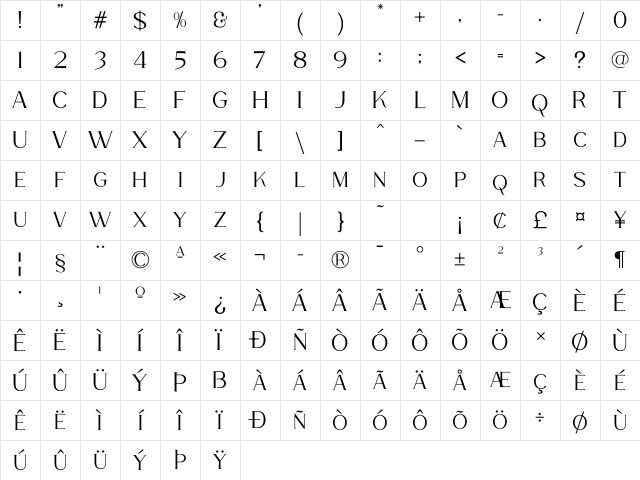
La Fleur Regular Free Font
La Fleur Regular
Foundry: Kong Font
Designer: Kong Font
Design Context for La Fleur
La Fleur is a composed and adaptable typeface that performs quietly and consistently across a wide range of design contexts.